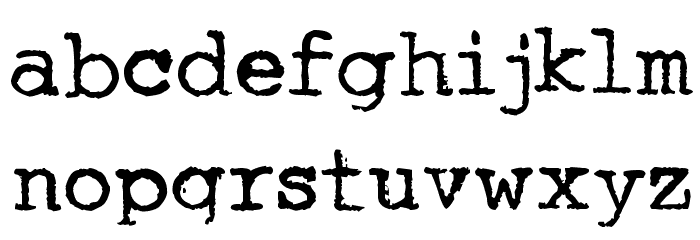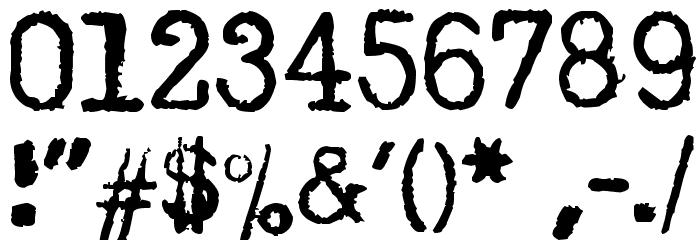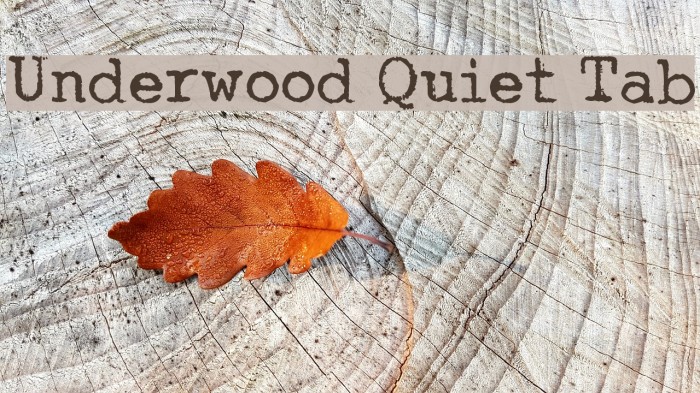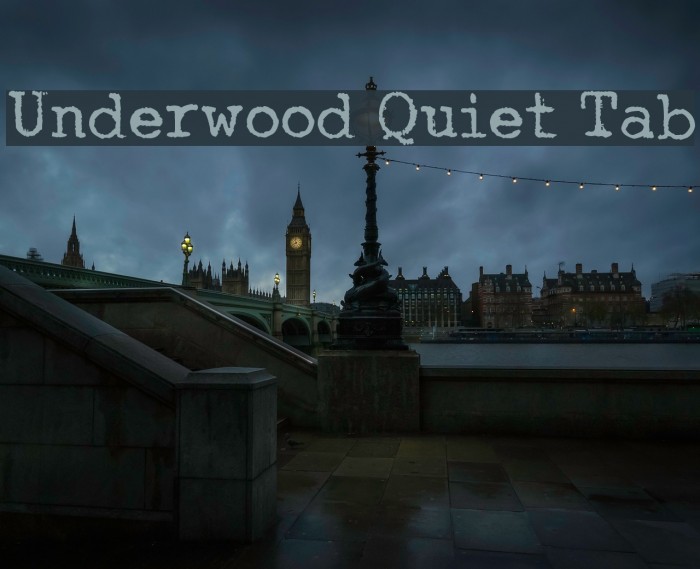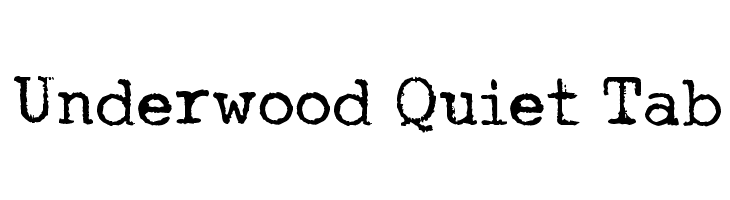
Underwood Quiet Tab Font
This typeface exudes a vintage, typewriter-inspired aesthetic with a distinct, worn texture that mimics the look of ink on paper. The characters are bold and slightly irregular, giving them a handcrafted feel. The uppercase letters are robust and commanding, while the lowercase letters maintain a consistent style, offering a harmonious balance. The numerals and special characters follow the same textured pattern, enhancing the overall cohesive appearance. This font is ideal for projects that aim to evoke a sense of nostalgia or a retro vibe, making it perfect for creative designs that require a touch of authenticity and character.
A vintage, typewriter-inspired font with a textured, worn appearance.
- Proposed Projects: Ideal for vintage-themed posters, retro branding, book covers, and creative projects requiring a nostalgic touch.
- Overall Style: Vintage